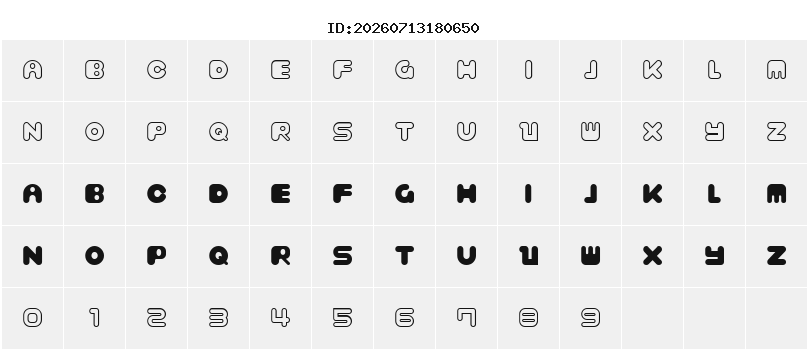
• Font Name: Bagel Old
• Font ID: Bagel Old
• Full Font Name: Bagel Old
• Version: Bagel Old version 2.00
• PostScript Name: BagelOld
• Character Count: 657
About Bagel Old.ttf
Bagel Old.ttf is a modern, elegant sans-serif font designed for ultimate readability and visual harmony. Perfect for branding, headlines, web design, and print materials.